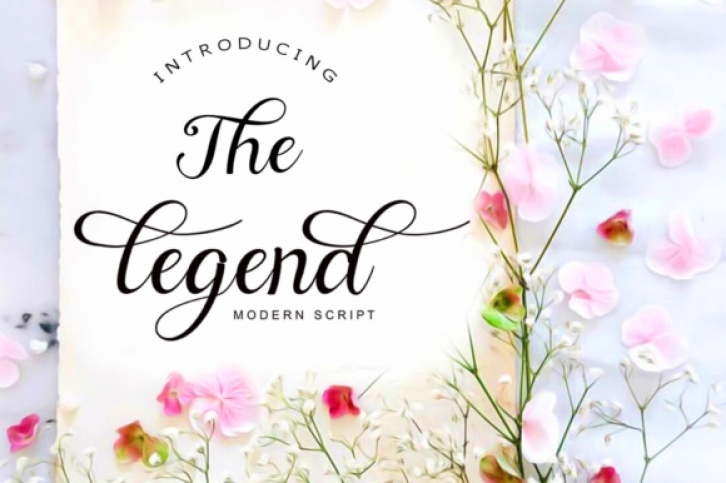
The legend is a modern script font with an irregular baseline and a trendy and feminine style. The legend looks lovely on wedding invitations, thank you cards, quotes, greeting cards, logos, business cards and more. Perfect for using in ink or watercolor.